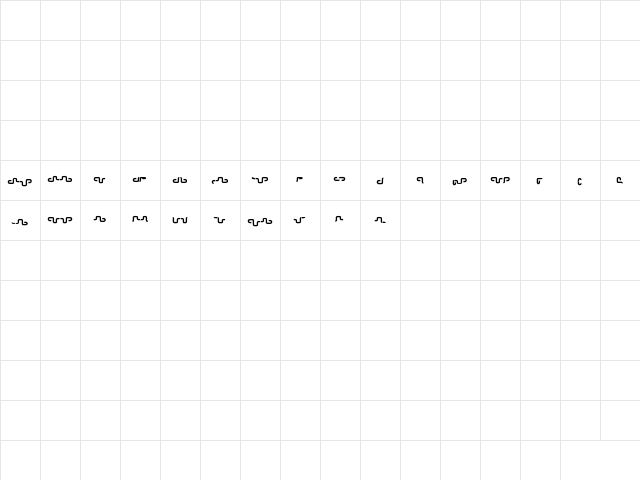
release me Regular
Design Context for release me Typeface
release me is a composed and adaptable typeface that performs quietly and consistently across a wide range of design contexts.